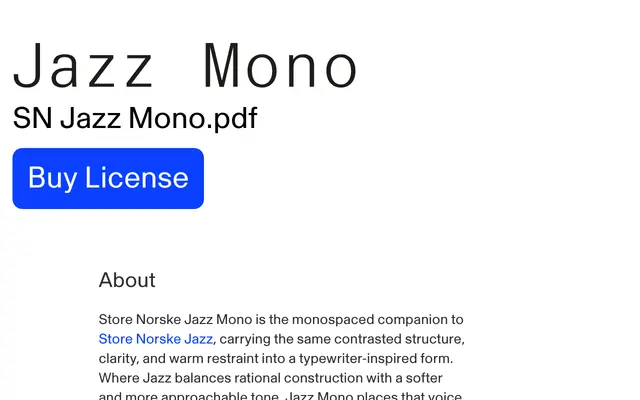
Store Norske Jazz Mono
A monospaced companion to Store Norske Jazz, retaining the original's contrasted structure and warm restraint within a fixed-width, typewriter-inspired form.
Designed by Arve Båtevik, Jazz Mono carries the proportions and controlled calm of Jazz into a fixed-pitch rhythm suited to editorial systems, interfaces and technical fields such as medicine, finance and technology. Each character occupies the same width while preserving enough warmth to keep the typeface from feeling anonymous or coldly mechanical. Three stylistic sets offer alternates for the zero, lowercase a, i/l forms and percent symbols, alongside a full suite of OpenType features for professional typesetting.
A fixed-width typeface with contrasted stroke structure and warm, restrained drawing, placing it firmly in the monospaced category while retaining the serif character of its companion Jazz.